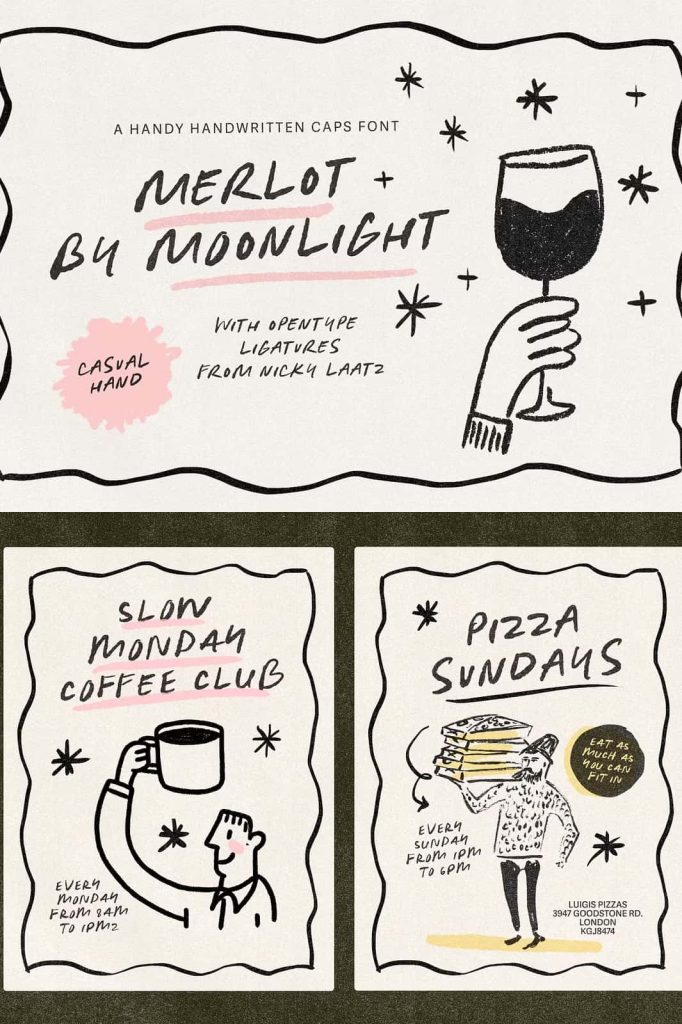
A charming new handwritten caps that dances the fine line between polished and playful, its naturally messy ‘bleeding edges’ giving a casual hand-drawn look that still manages to feel sophisticated.